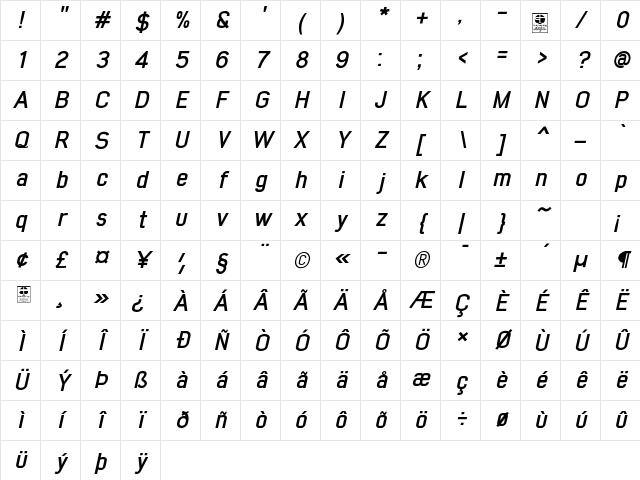
Complete Early Times Bold Italic Demo Regular glyph index. Displaying only characters natively supported by Early Times Bold Italic Demo Regular font.
Early Times Bold Italic Demo is a composed and adaptable typeface that performs quietly and consistently across a wide range of design contexts. The slanted form adds forward momentum and visual energy. Its bold stroke weight gives it real presence on the page.
Pro Tip: Use Early Times Bold Italic Demo for emphasis, pull quotes, and subheadings where its slanted energy can add rhythm to the layout.